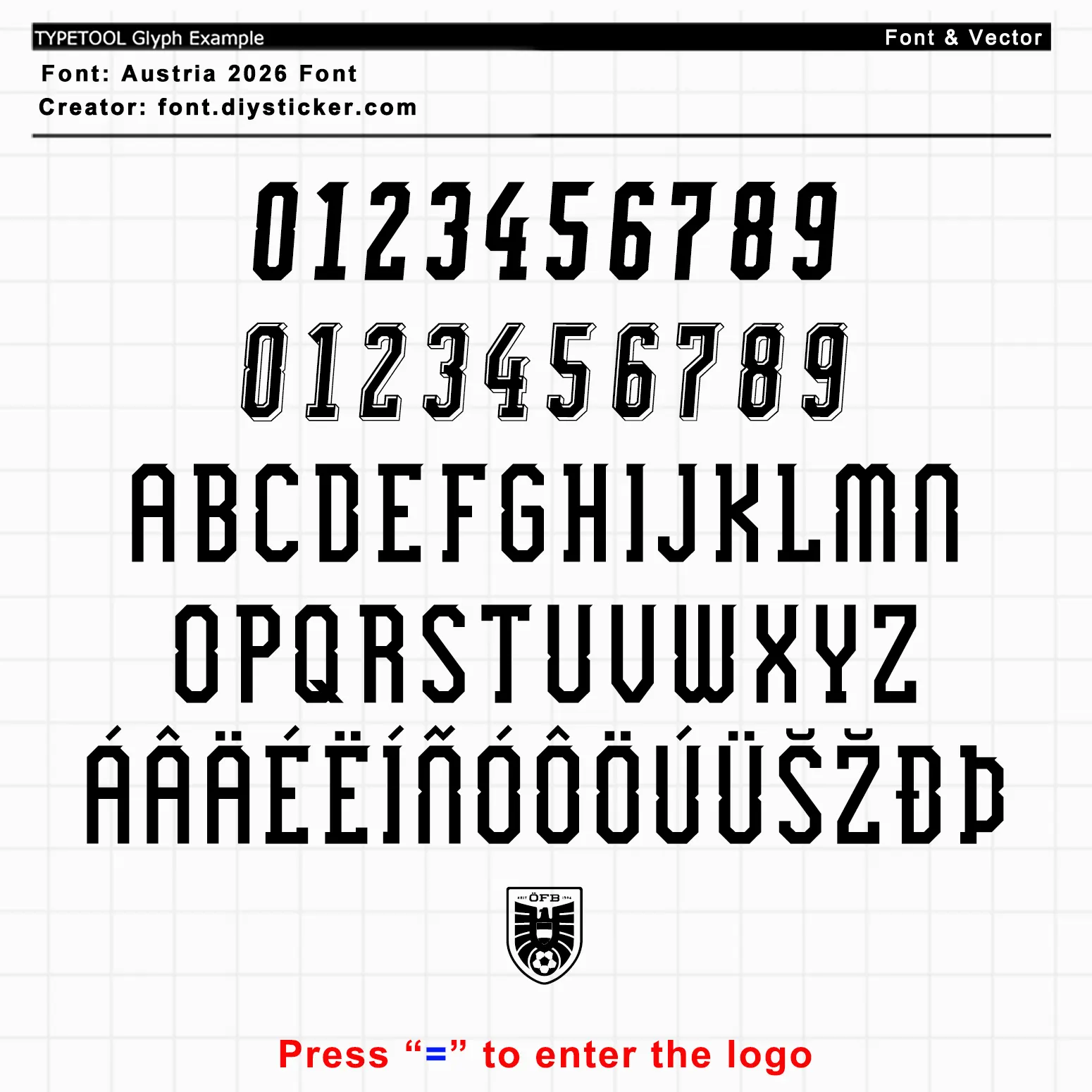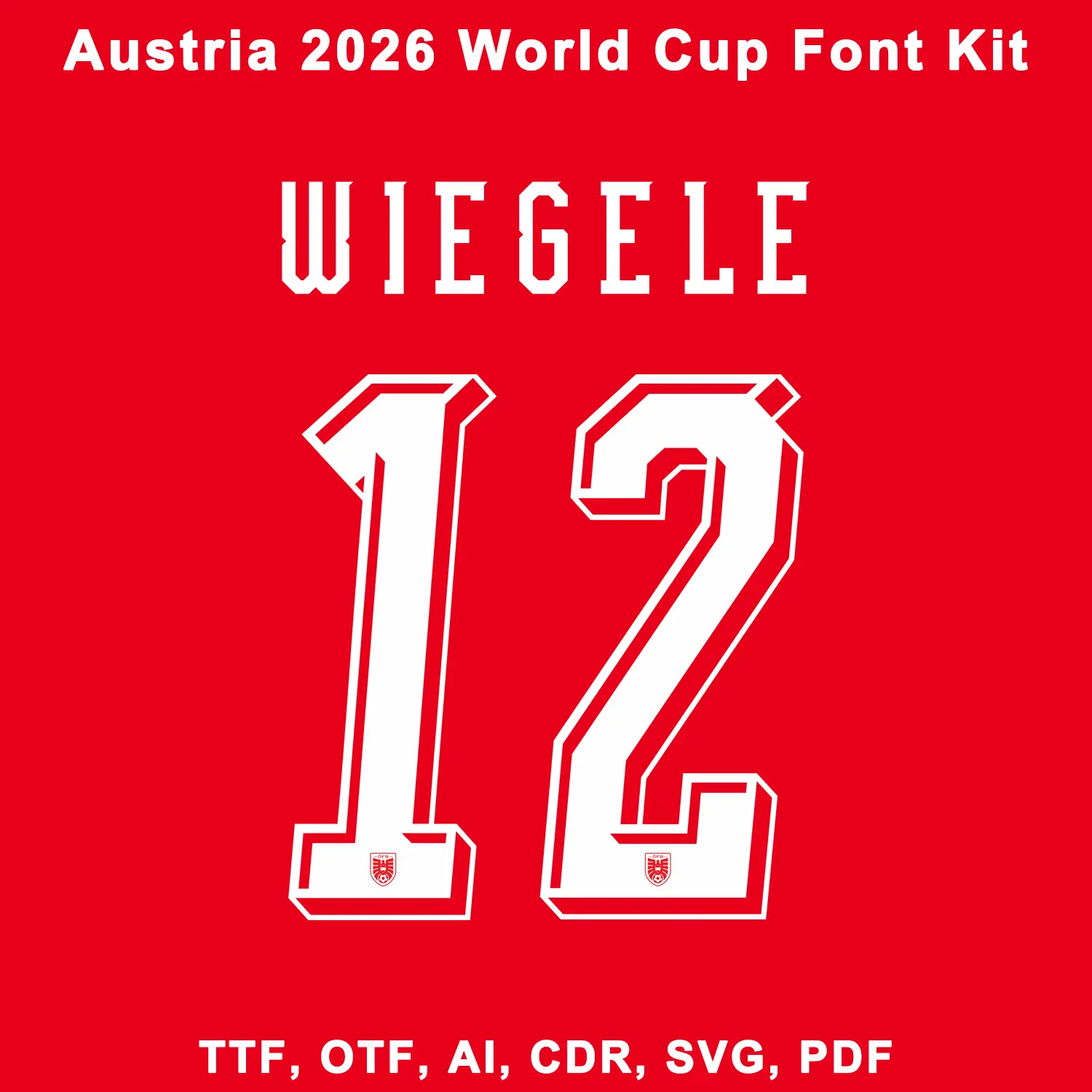
Grab the authentic Austria 2026 World Cup Font for custom national team jersey design and print work. This fully digital typography pack replicates the official match kit lettering, available for instant download right after checkout.
Austria 2026 World Cup Font | Official OFB National Team Typography
The Austria 2026 World Cup Font is a precise digital replica of the official jersey lettering used by the Austria OFB national squad for the 2026 FIFA World Cup tournament. Crafted for print studios, kit restorers and custom apparel creators, this font features sharp angular serif outlines, dual layered stroke numerals, tiny embedded OFB national crest marks at the base of every number, and a full set of German diacritic accented characters to match official Austrian player names.
Whether you’re remaking vintage replica jerseys, producing fan custom kits, or preparing mass vinyl cut orders for World Cup supporters, this complete font set delivers crisp, print-ready vector characters with perfectly matched official kerning and shape proportions.